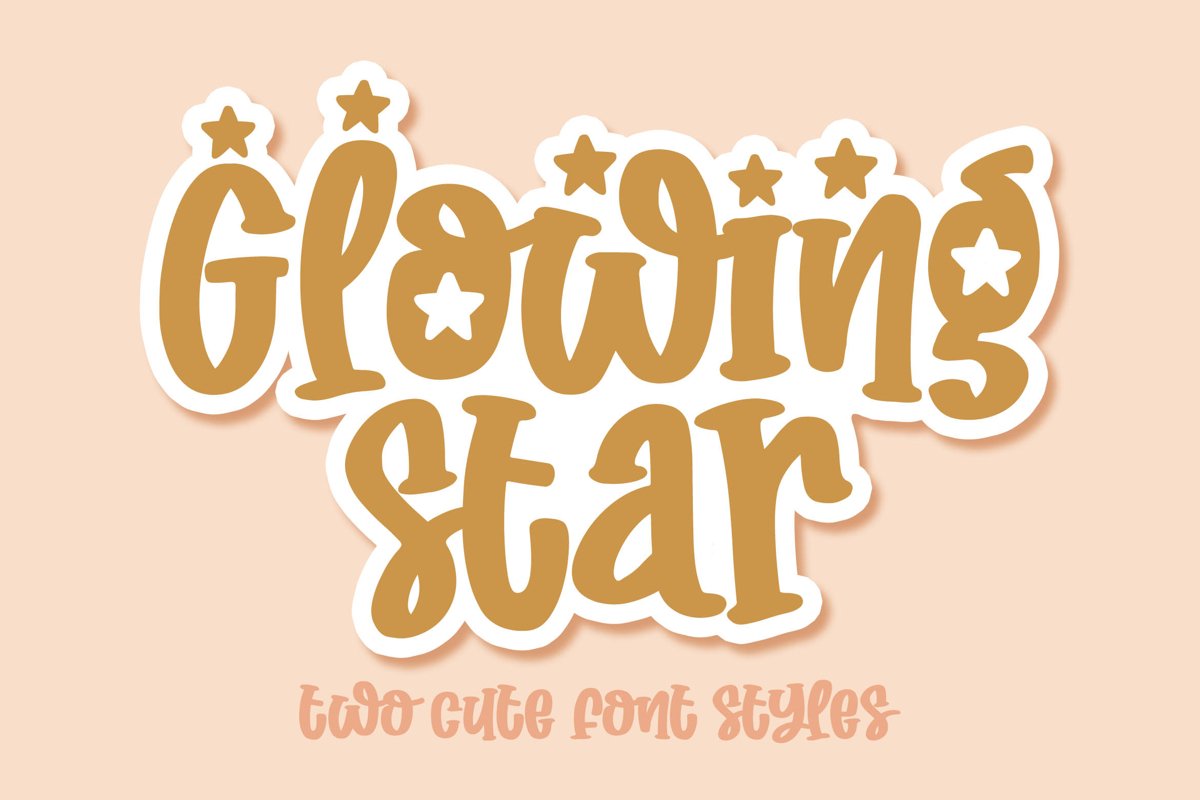
Glowing Star
Glowing Star is a cute font and it has two styles, regular and cute with star shapes as ornament. The regular style is support multilingual character. Glowing Star font is perfect for any design purposes and great for crafts. You can choose it for advertising, invitations, posters, cards, and many more.